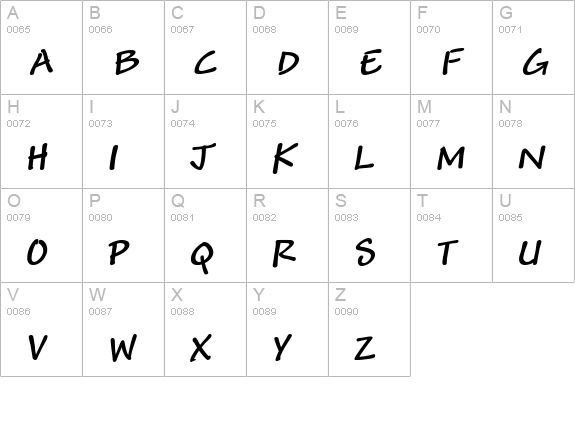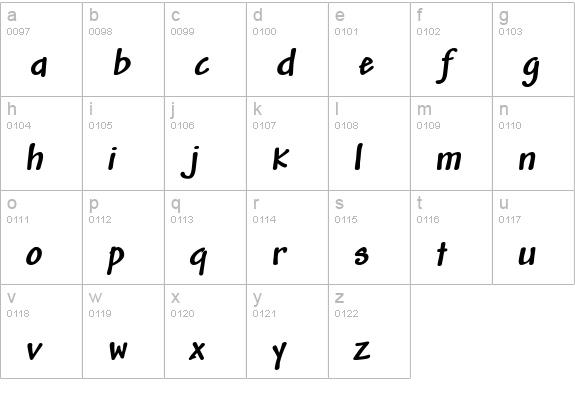
Andy Pro Bold Italic Font Details
Andy Pro Bold Italic is a strong, high-contrast, italic variant in the Andy typeface family \xE2\x80\x94 well suited to headlines, attention-grabbing titles, and strong calls-to-action.
Andy Pro Bold Italic is a modern and dynamic font that exudes confidence and style. Its bold and italic design adds a touch of sophistication to any project, making it perfect for headings, titles, and branding materials. This versatile typeface combines the strength of a bold weight with the elegance of italicized characters, creating a unique visual impact.